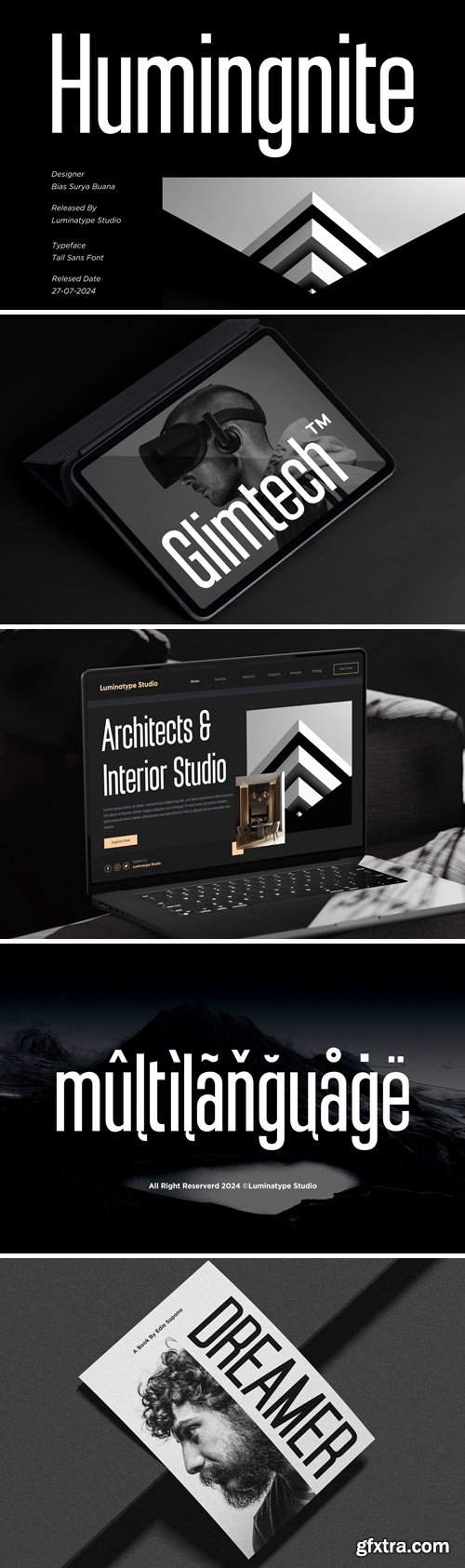
LT Humingnite
Discover the elegance and whimsy of our Tall Sans Serif font; an ideal accompaniment for standout logos and high-impact branding. With its towering characters and light-hearted appeal, it injects a delightful energy into any design. This distinctive font elevates your creative endeavors while maintaining a playful touch. Display your distinct style with the charming blend of height and humor that Tall Sans Serif brings to the table.
Come With More Than 450 Glyphs + Alternate